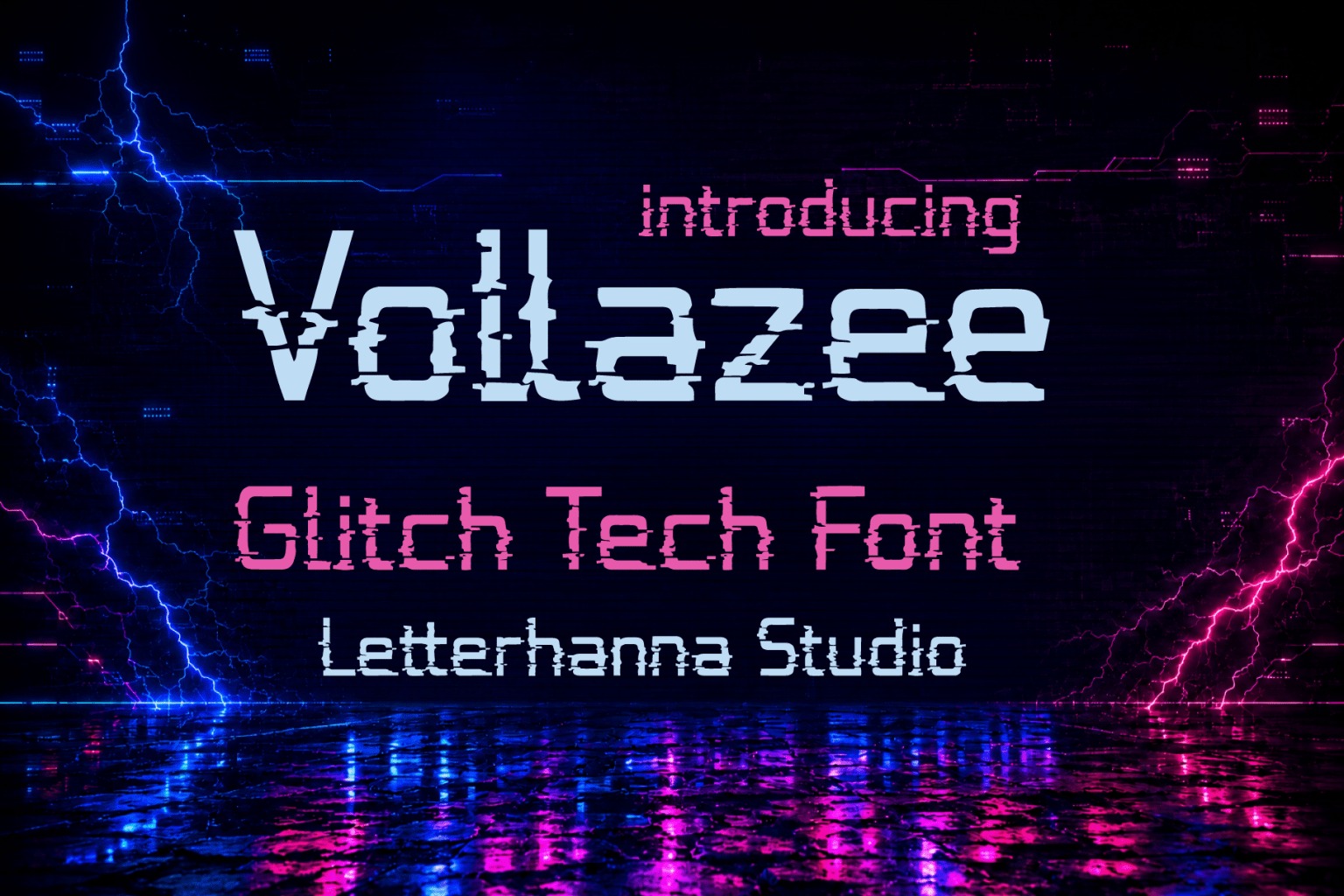
Vollazee – Techno Diplay Font
Vollazee – Techno Diplay Font: Every designer knows the feeling. You open your font folder, scroll past hundreds of clean sans-serifs, and still can’t find “the one.” Everything looks safe. Everything looks the same. That flat, overused feeling is exactly why glitch font styles like Vollazee exist.
Vollazee isn’t just broken for the sake of being broken. Look closely and you’ll notice deliberate scan-line cuts running through each letterform, like a signal losing connection mid-transmission. It’s the visual language of static, corrupted data, and digital decay — but shaped into something you can actually read at a glance.